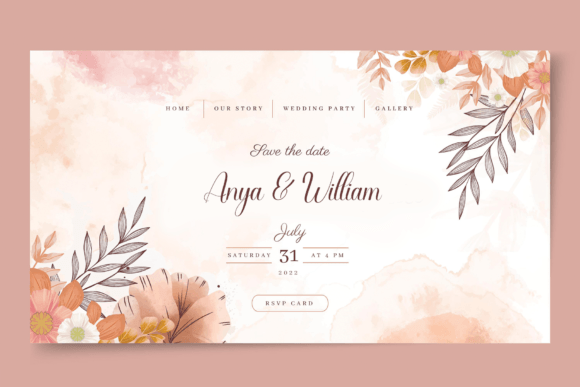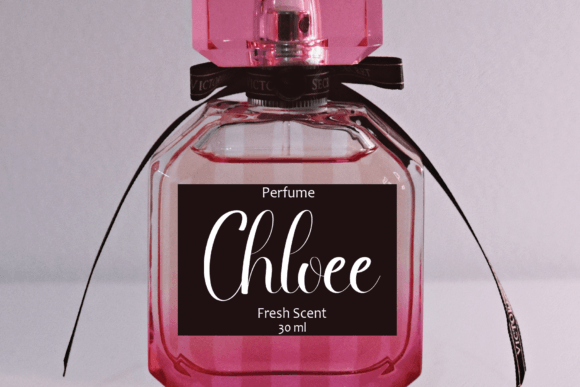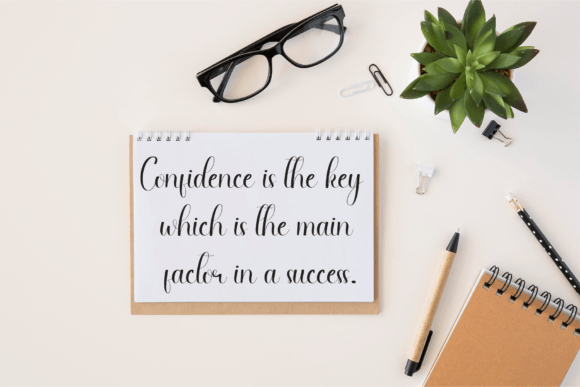
Introduction to Qualify Font
Have you ever stared at a blank canvas, eager to bring your creative vision to life, only to be held back by the perfect font? That’s where the Qualify Font comes in – a sweet and friendly handwritten font that’s sure to give your design that extra oomph. This versatile font is perfect for writing wedding invitations, cards, or any other design that needs a lovely touch.
As designers, we know how crucial it is to have high-quality design resources at our fingertips. Whether you’re working on a creative project from scratch or need a last-minute tweak, having access to a reliable font like Qualify Font can be a game-changer. Plus, with its transparent background, you can easily overlay it on any image or design element, making it a valuable addition to your design arsenal.
Key Features of Qualify Font
- High-quality, professional font design suitable for various creative projects, including graphic design, digital art, and publishing.
- Includes a transparent background option, allowing for seamless integration into various design elements and backgrounds.
- Features a high-resolution design, suitable for use at sizes up to 300 DPI, making it ideal for print and digital applications.
- Designed to be highly legible and visually appealing, with a unique character set that sets it apart from other fonts in its class.
Honest Review: Qualify Font
As a designer, I’m always on the lookout for high-quality design resources to enhance my creative projects. Recently, I stumbled upon the Qualify Font, and I’m excited to share my honest review with you.
- What works well: ✨ The Qualify Font has a sleek and modern design that makes it perfect for a variety of creative projects, from logos to brochures.
- What works well: ✨ The Qualify Font is highly customizable, allowing designers to easily adjust the font to fit their specific needs.
- ⚠️ The font is not suitable for use on a transparent background, as the design may become distorted.
Overall, I’m impressed with the Qualify Font’s high quality and versatility. While it may have a few limitations, it’s a great option for designers looking for a modern and customizable font for their creative projects.
Qualify Font
Tips for Getting the Most Out of Qualify Font
Use Qualify Font in bold or italic styles to add emphasis to your text. Experiment with different font sizes to create visual interest. Combine Qualify Font with other design elements to create a cohesive look.
Qualify Font is ideal for use in logos, headings, and body text. It’s also perfect for creating social media graphics, brochures, and other marketing materials.